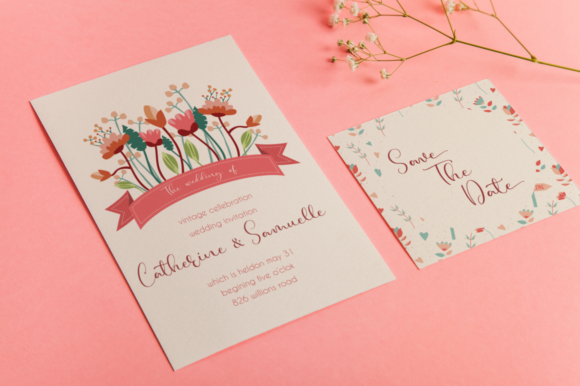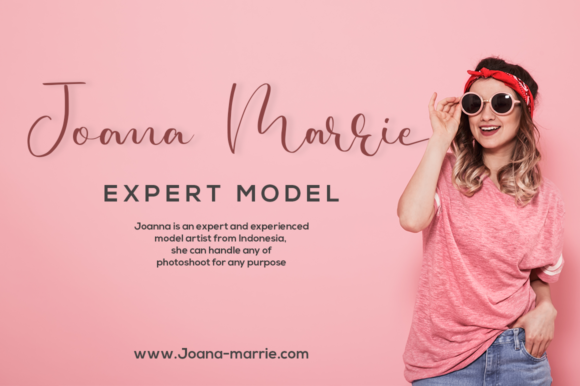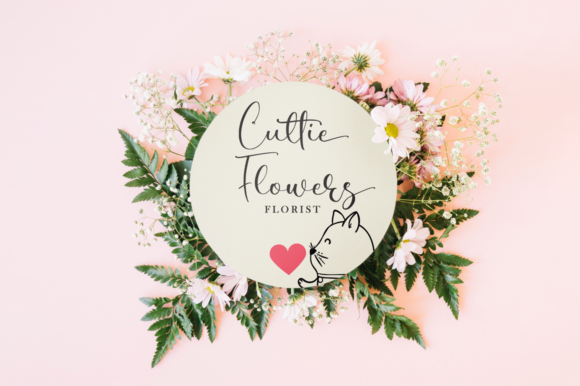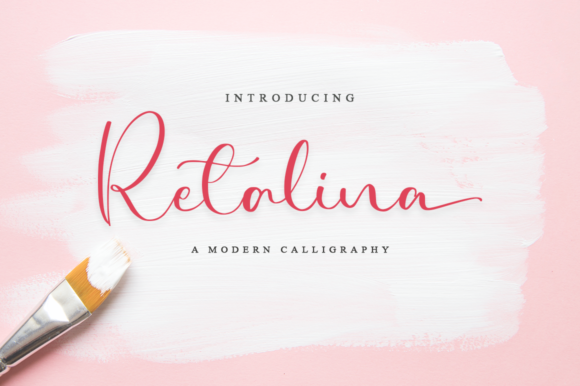
Introduction to Retalina Font
Retalina is a beautiful light handwritten font with a unique feel and a stunning impact.
It will add a luxury spark to any design project that you wish to create This font is PUA encoded which means you can access all of the amazing glyphs and ligatures with ease.
Retalina Font offers exceptional quality and versatility, making it a valuable addition to your design toolkit. Whether you’re creating for personal projects or commercial use, Retalina Font delivers professional results.